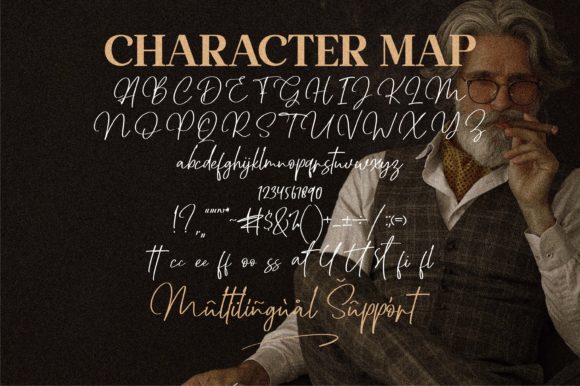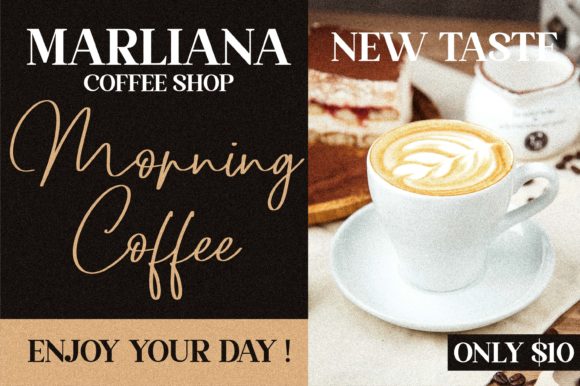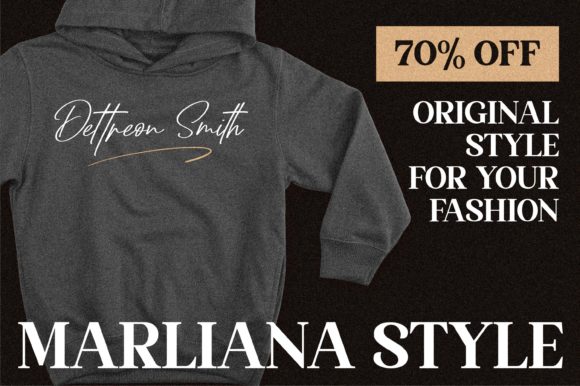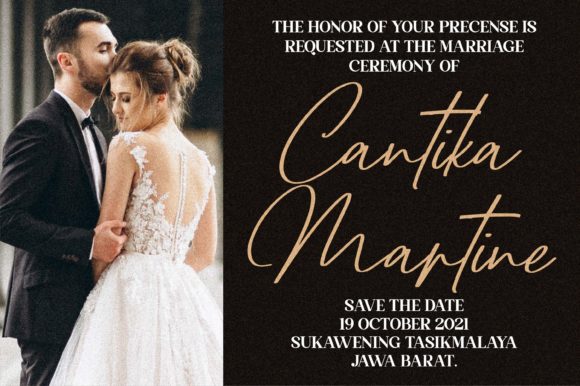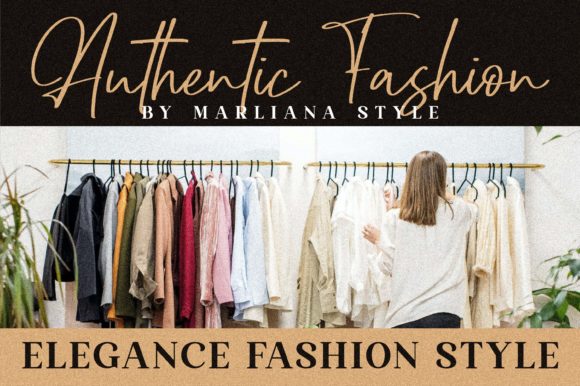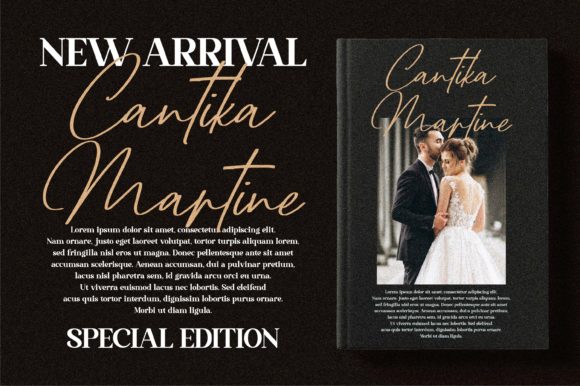
About Dettreon Smith Font
Dettreon Smith is a beautiful light handwritten font with a unique feel and a stunning impact. It will add a luxury spark to any design project that you wish to create! This font is PUA encoded which means you can access all of the amazing glyphs and ligatures with ease!